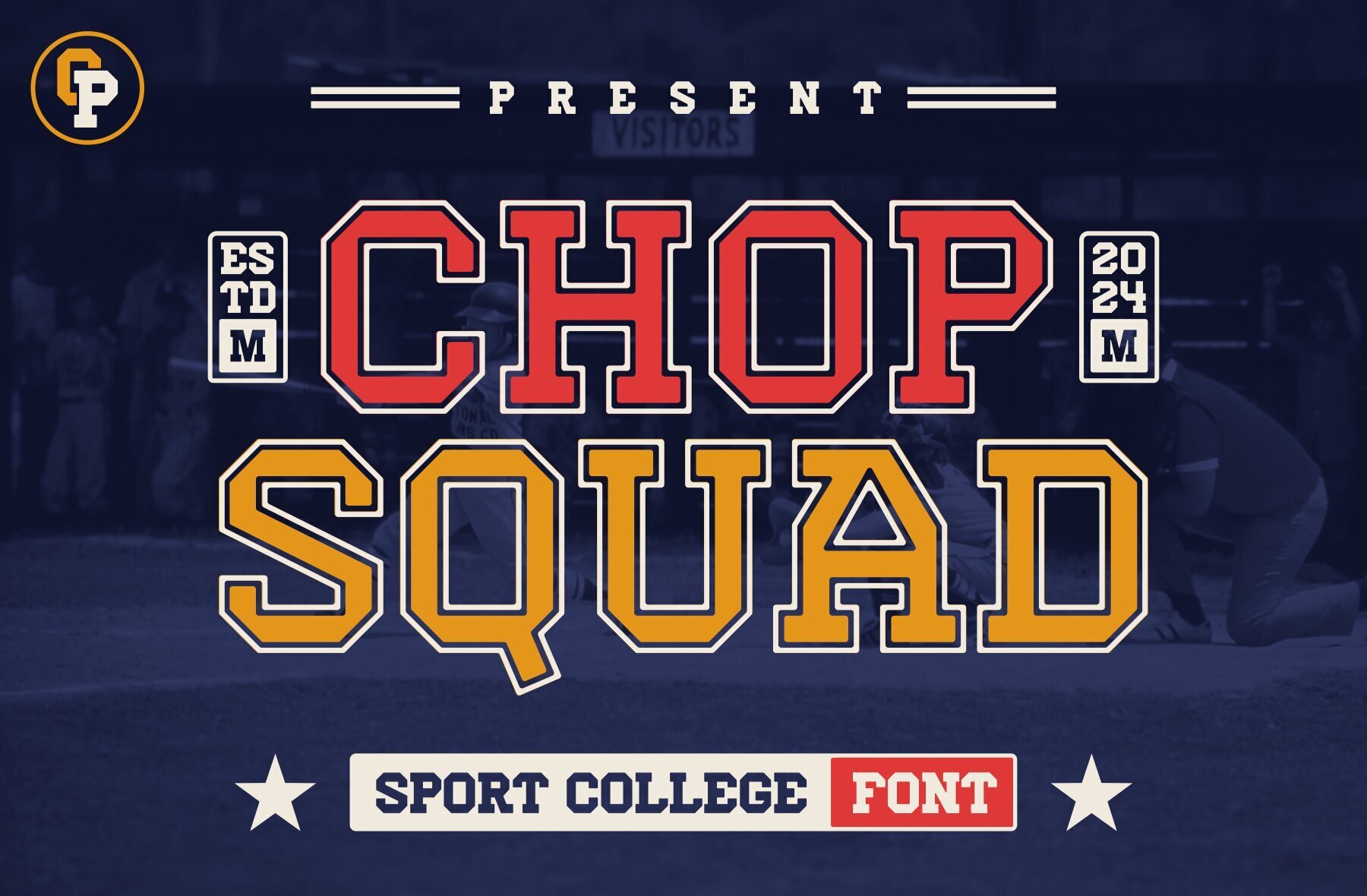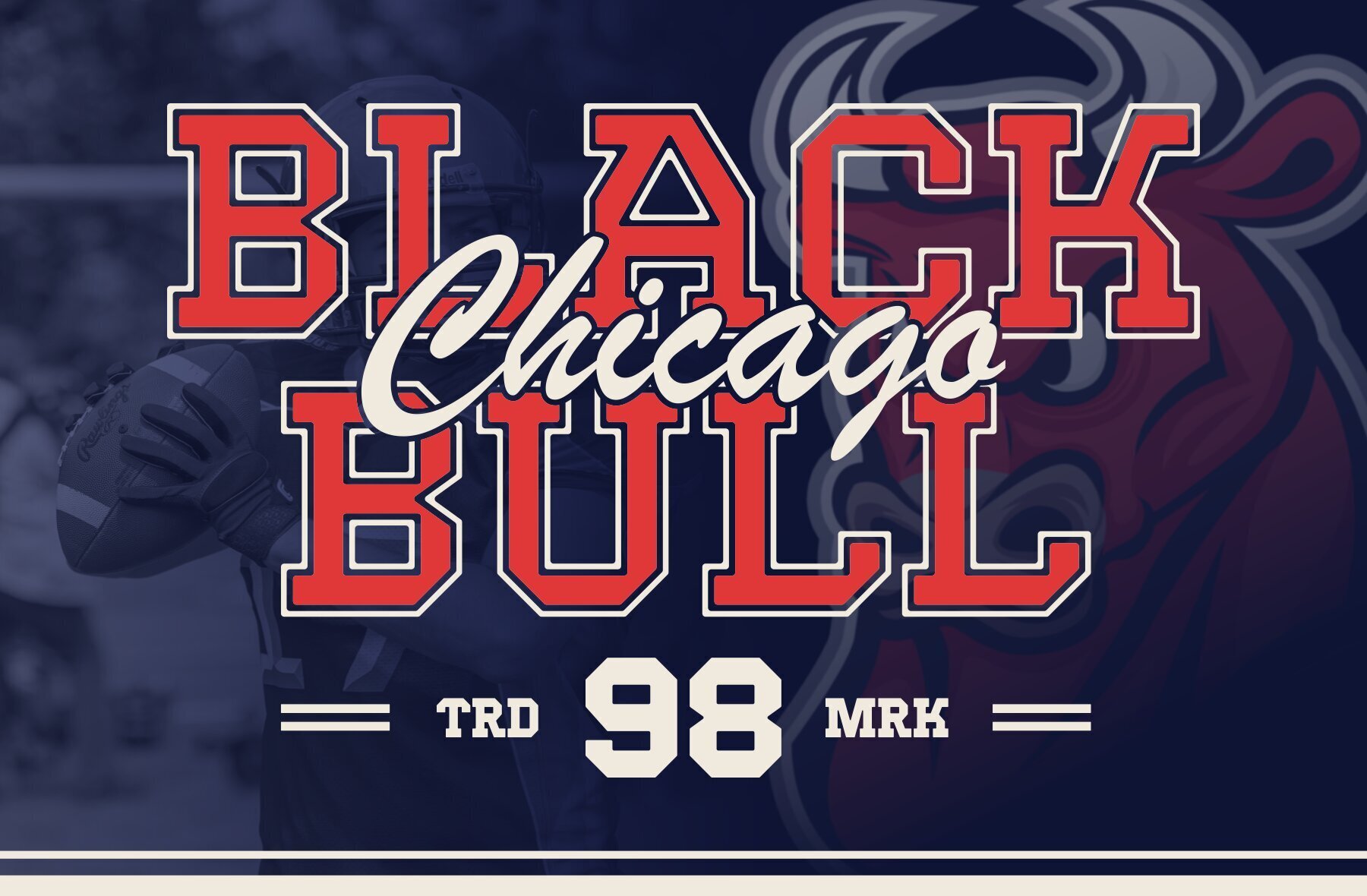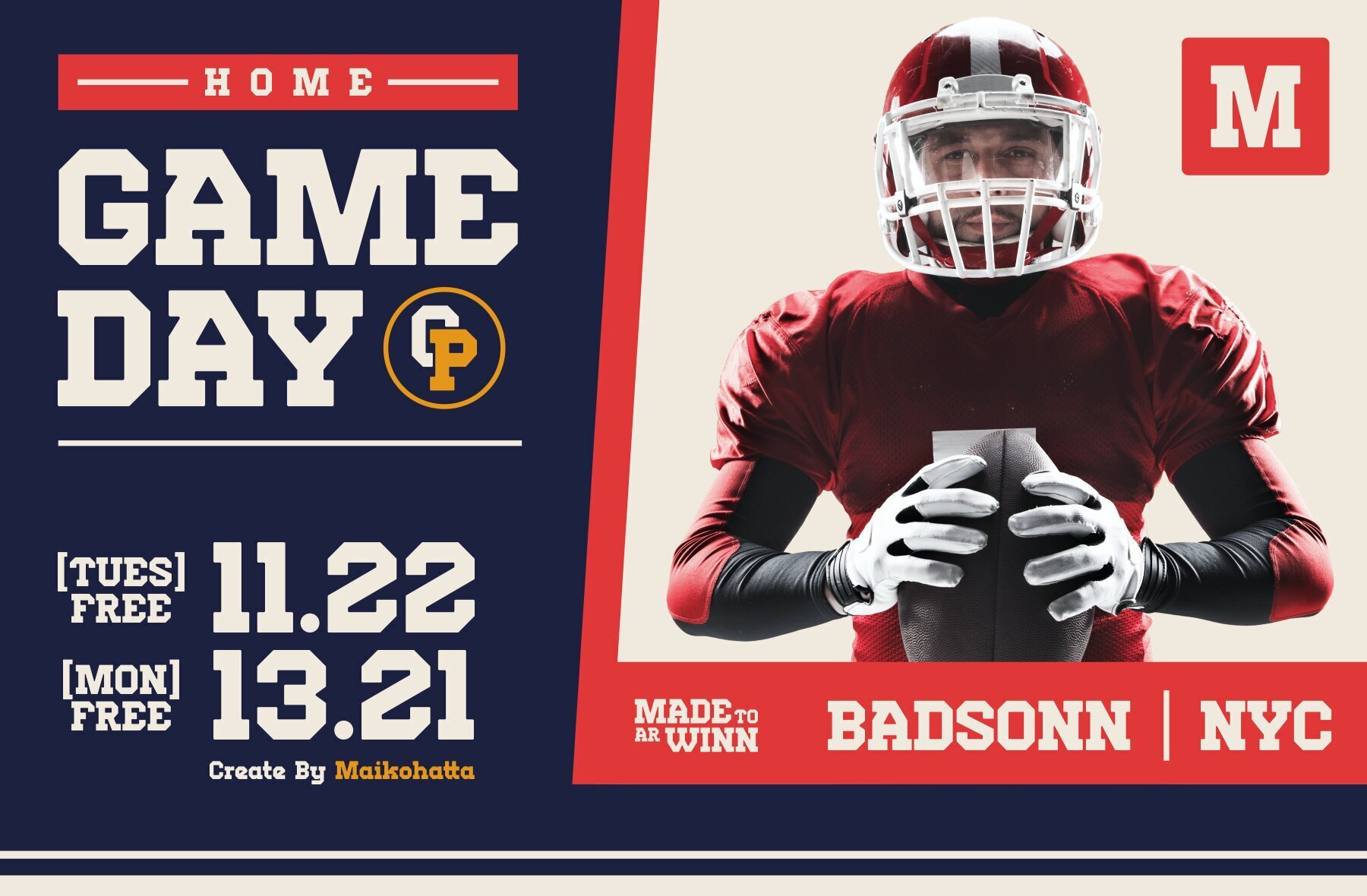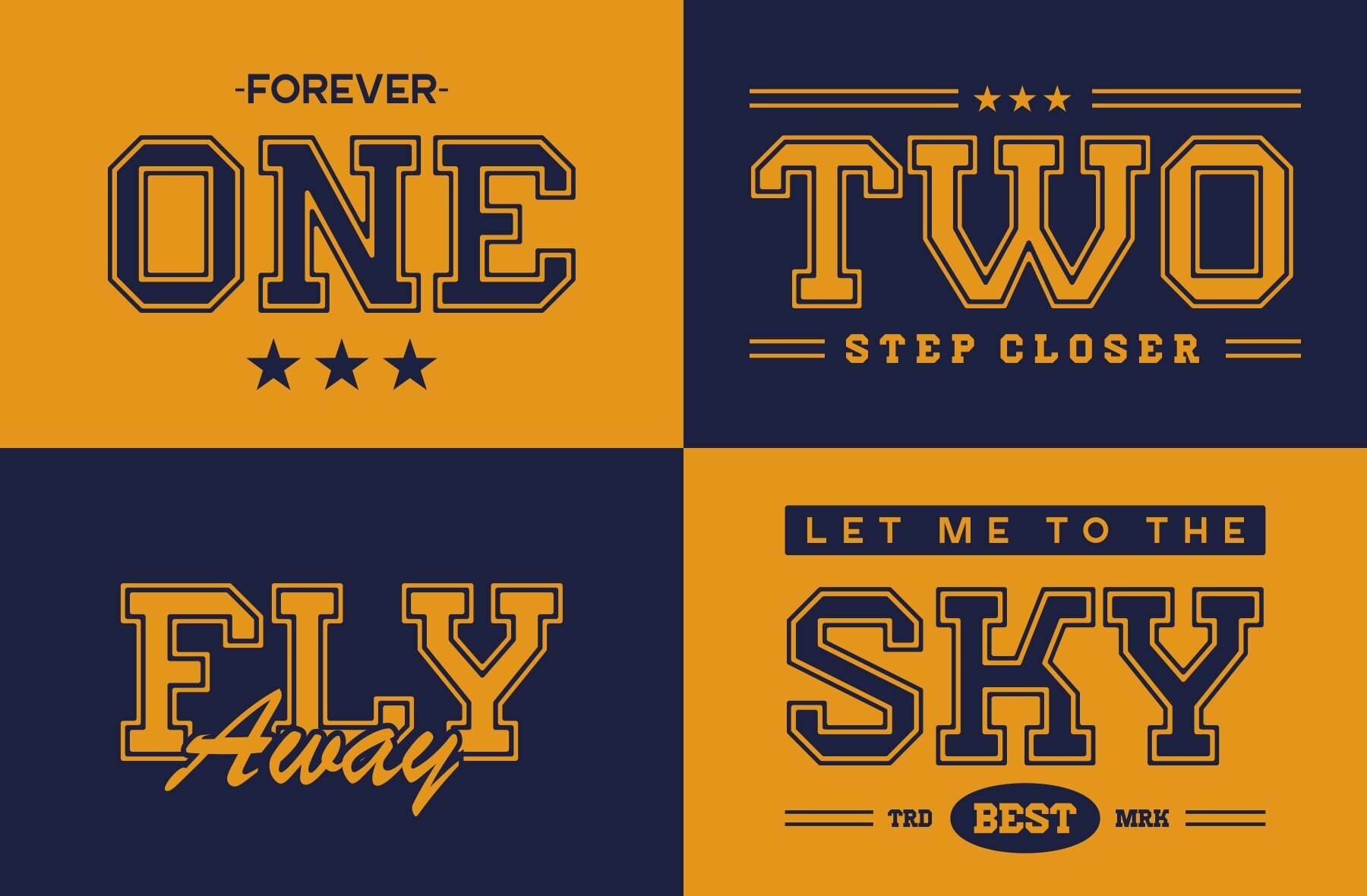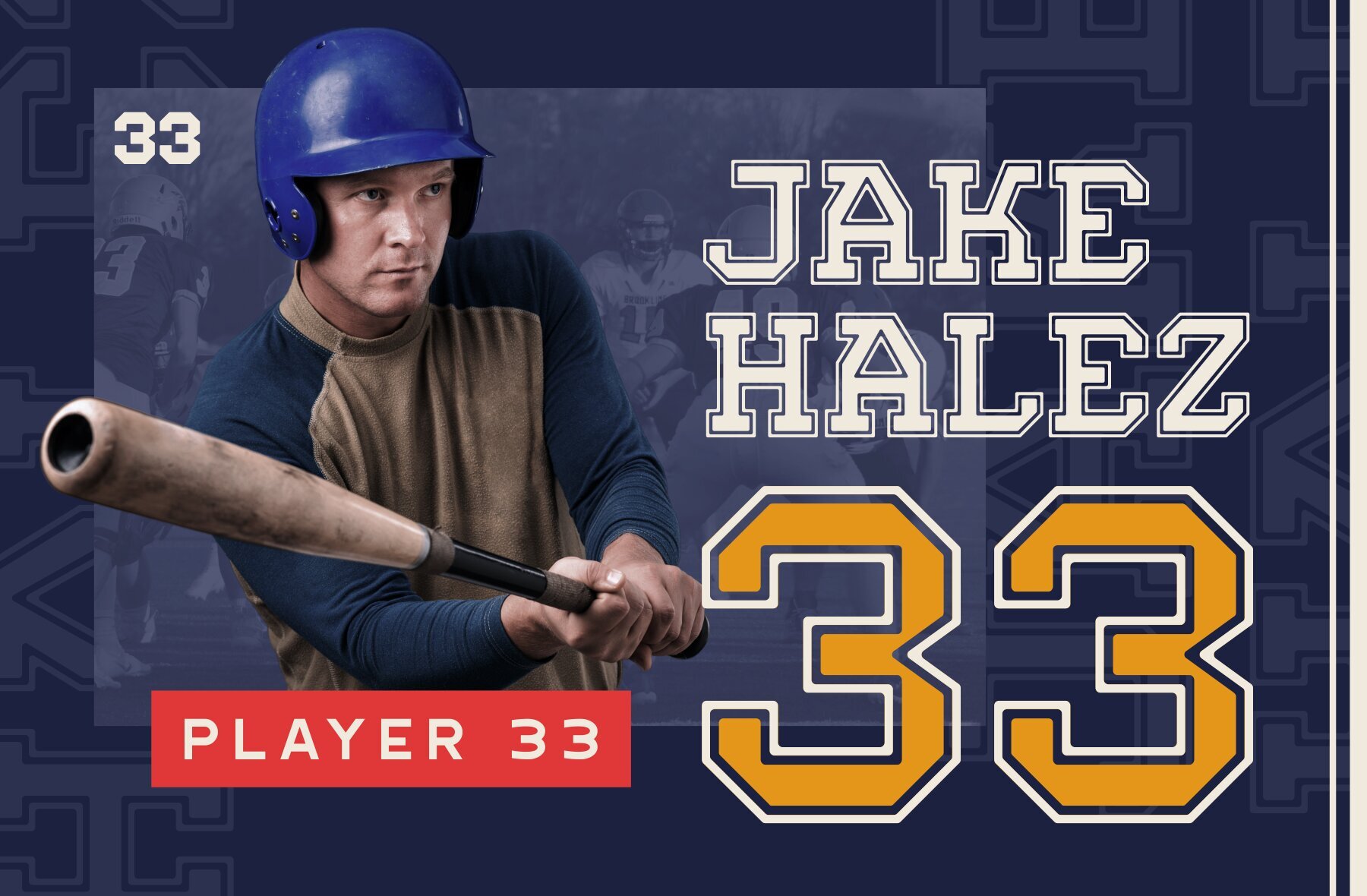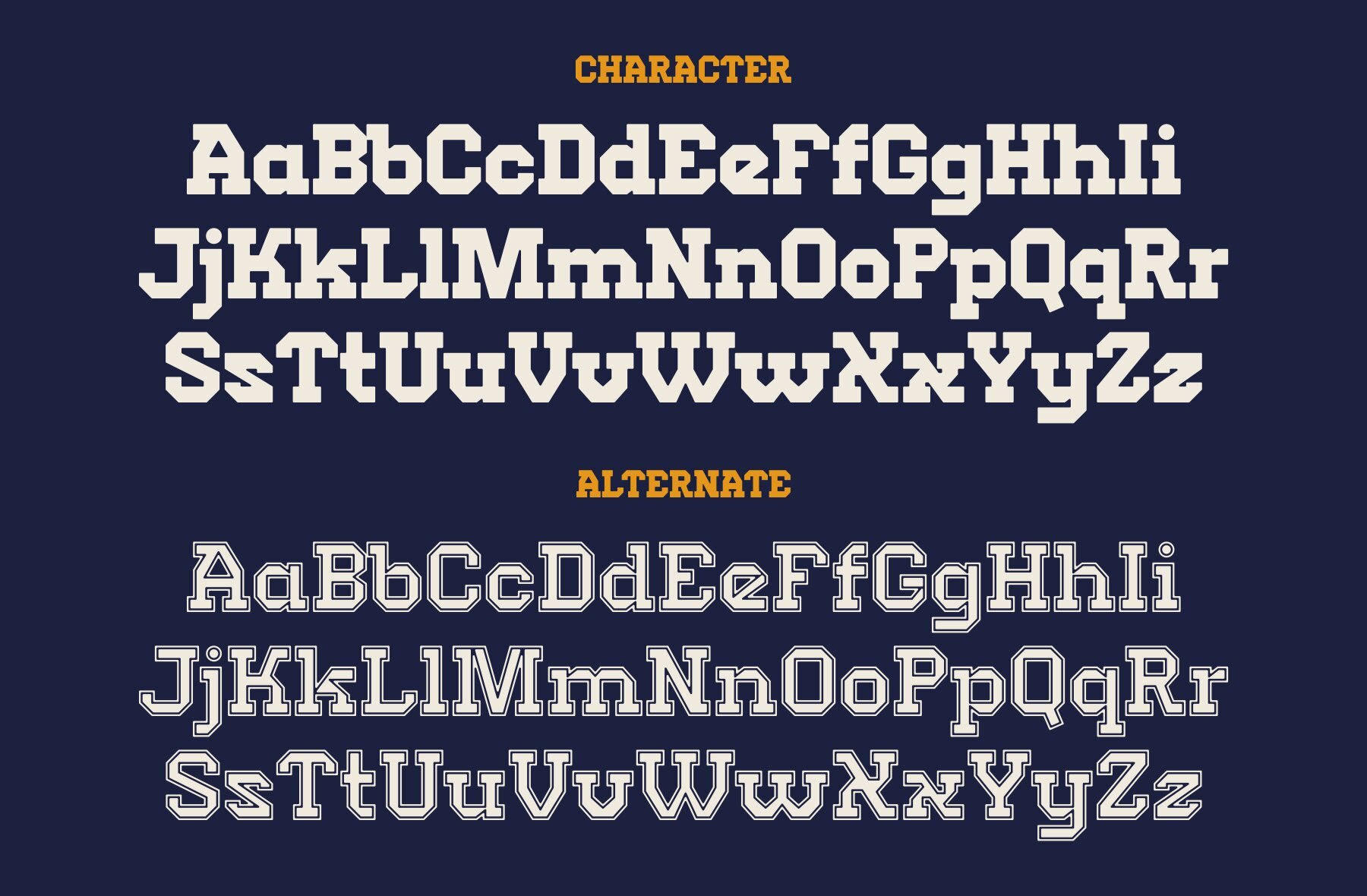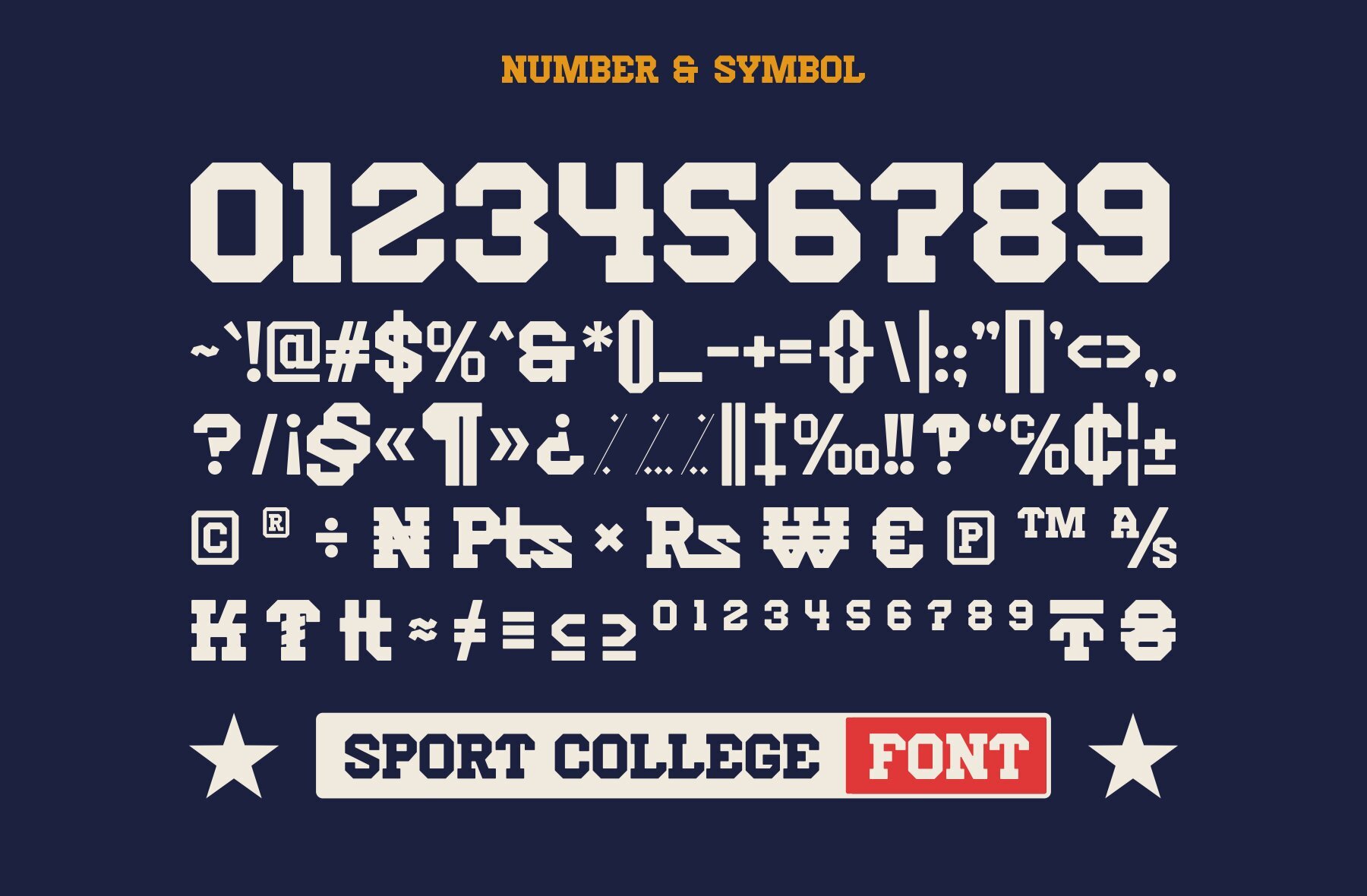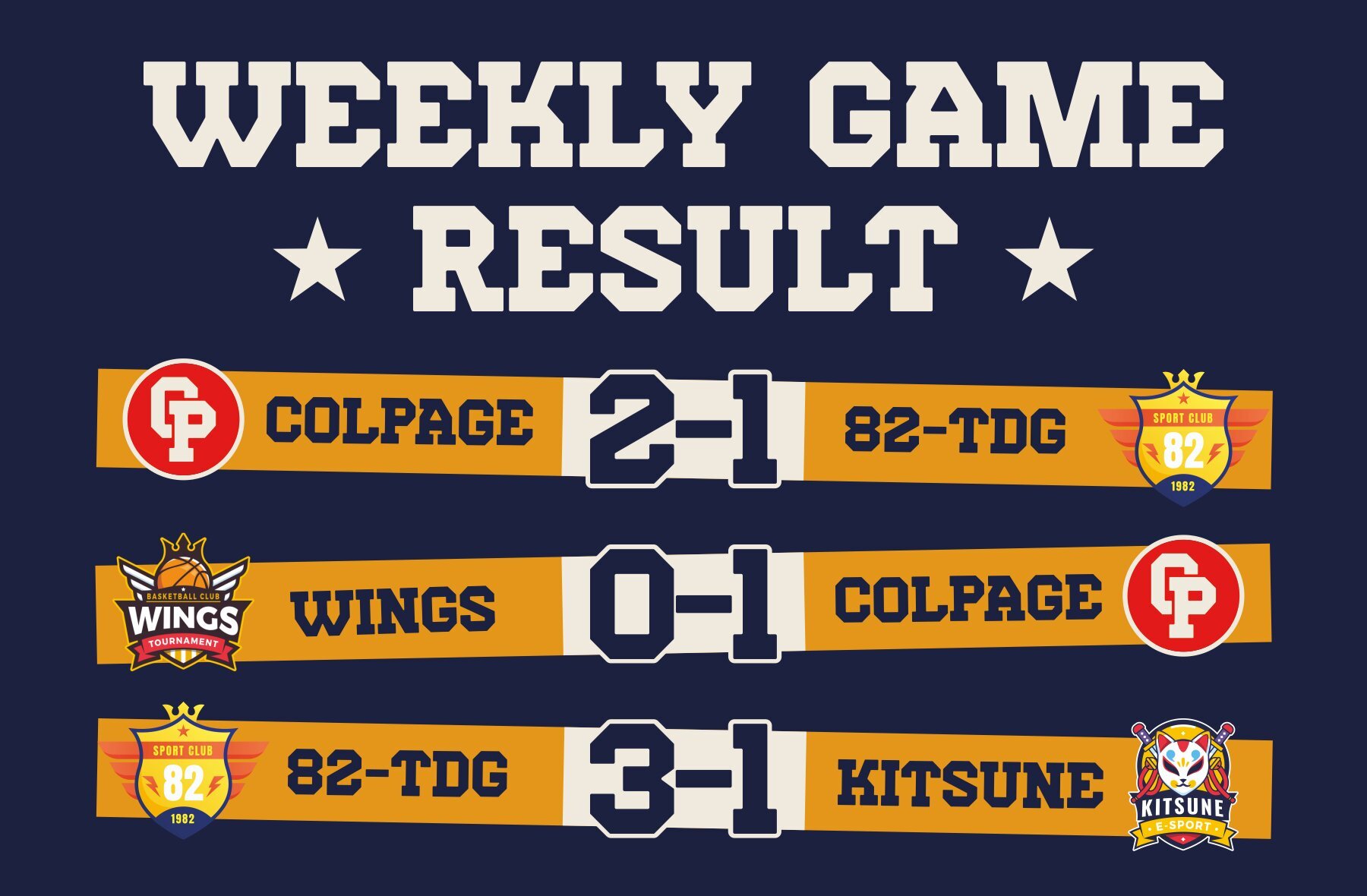
Chop Squad Font
CHOP SQUAD
Chop Squad is a modern serif font crafted to embody the dynamic energy and resilience often linked with sports and physical activities. Ideal for sports team branding, athletic company logos, and major sporting event promotions, its design enhances visual impact while fostering an emotional connection centered on competition and achievement.
Features of Chop Squad include a full set of uppercase and lowercase letters, multilingual support, ligatures, and alternate characters. This versatile set ensures a wide range of design possibilities, making it a robust choice for creating compelling and powerful brand identities.